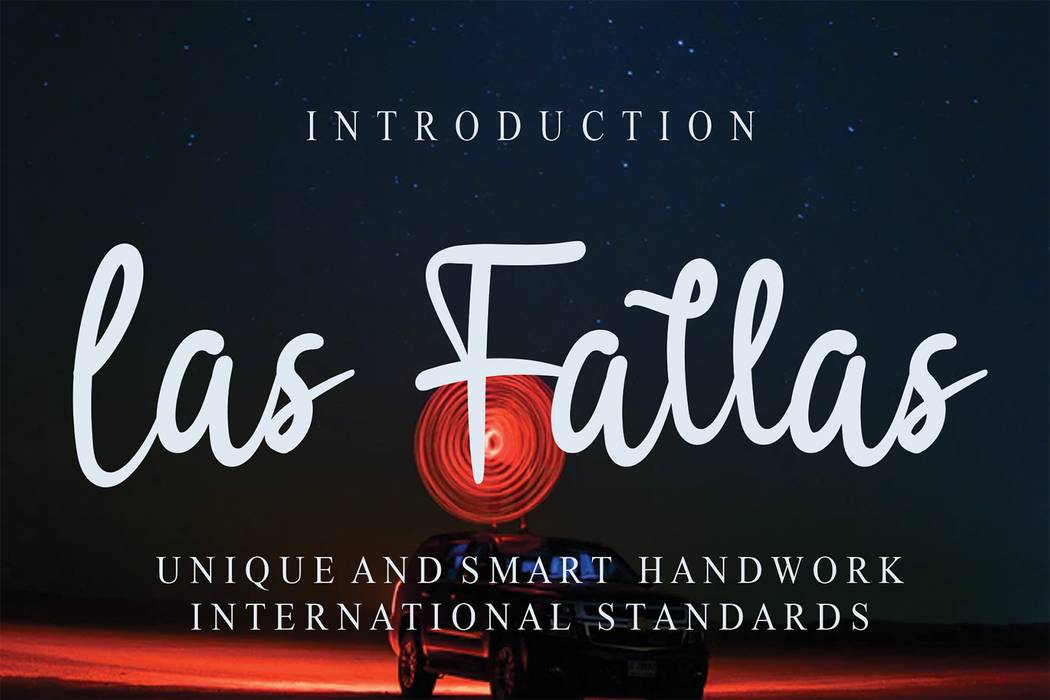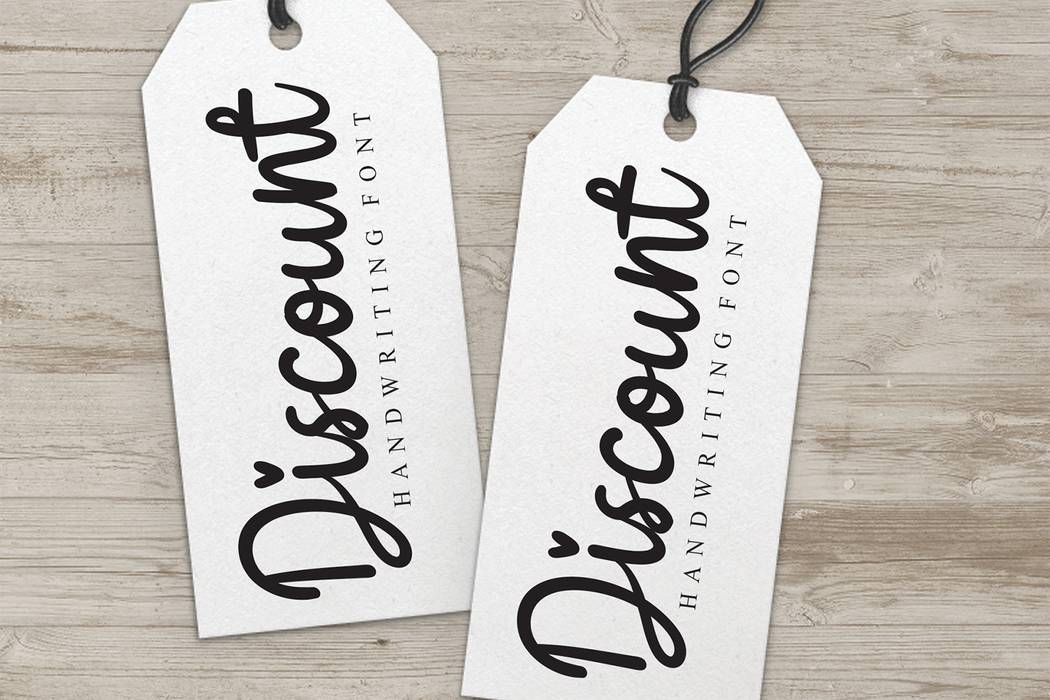
Las Fallas is a playful and elegant script font featuring smooth, flowing strokes with a casual, hand-drawn feel. Its balanced weight and slightly condensed shapes make it perfect for creative and friendly designs, adding a personal touch to invitations, branding, and headlines. This font works wonderfully where a charming and approachable style is desired, especially in fashion, packaging, and editorial projects.
Las Fallas Font
About Las Fallas Font